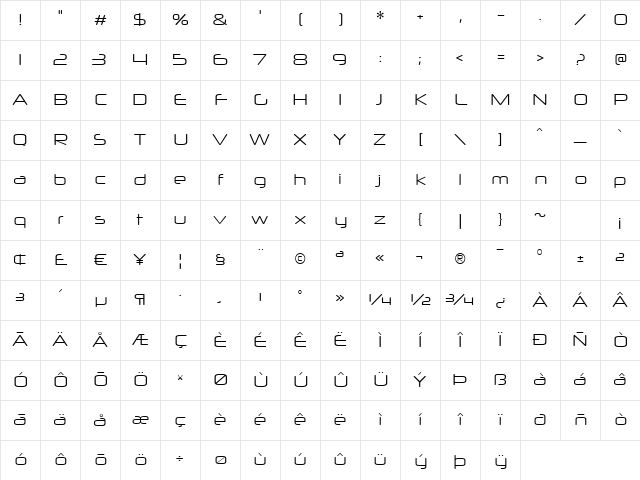
Neuropol X Lite Regular
Neuropol X Lite Family
Neuropol X Lite Regular
Complete Neuropol X Lite Regular glyph index. Displaying only characters natively supported by Neuropol X Lite Regular font.
Design Context for Neuropol X Lite
Neuropol X Lite is a composed and adaptable typeface that performs quietly and consistently across a wide range of design contexts.
Pro Tip: Use Neuropol X Lite in both headline and body roles to test its range before committing to a single application.